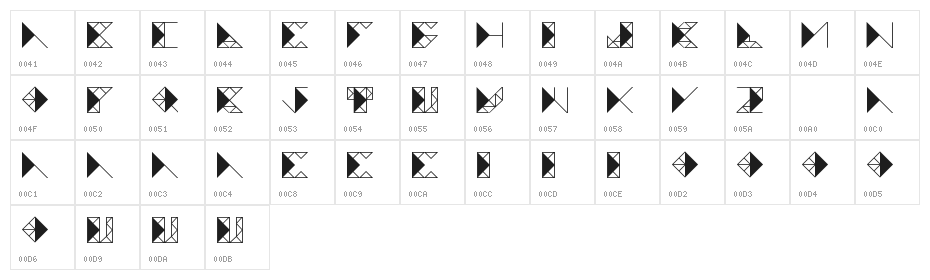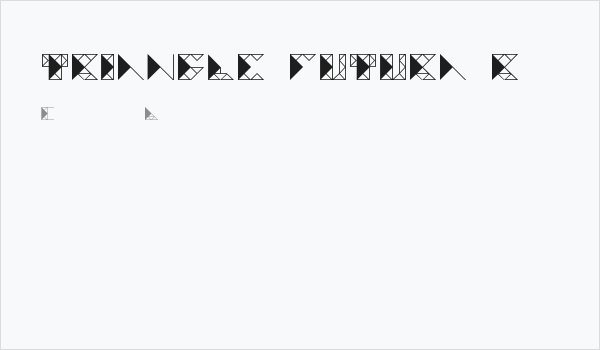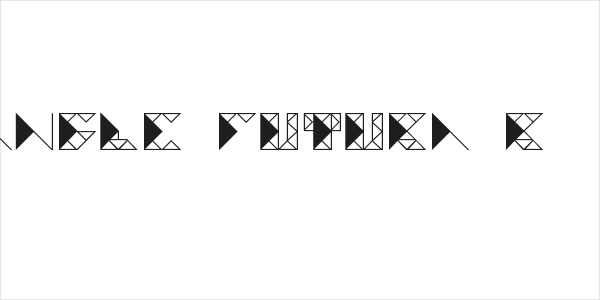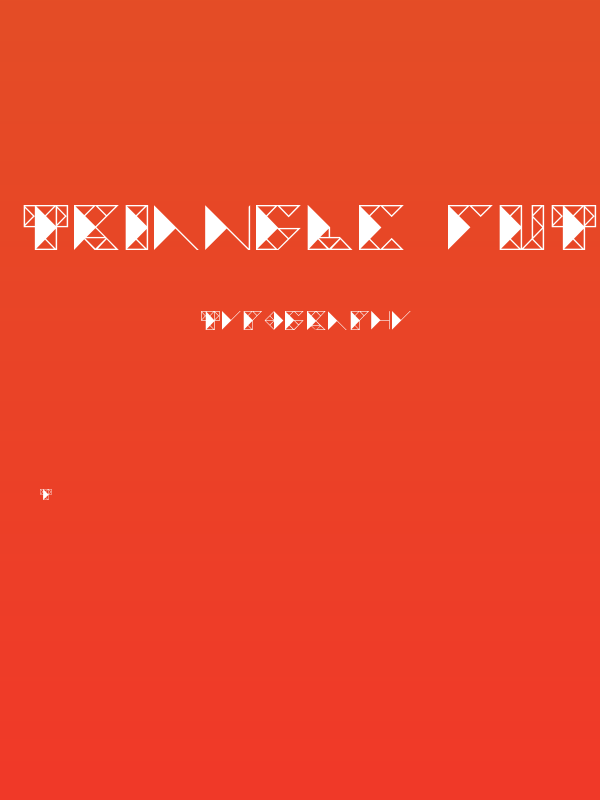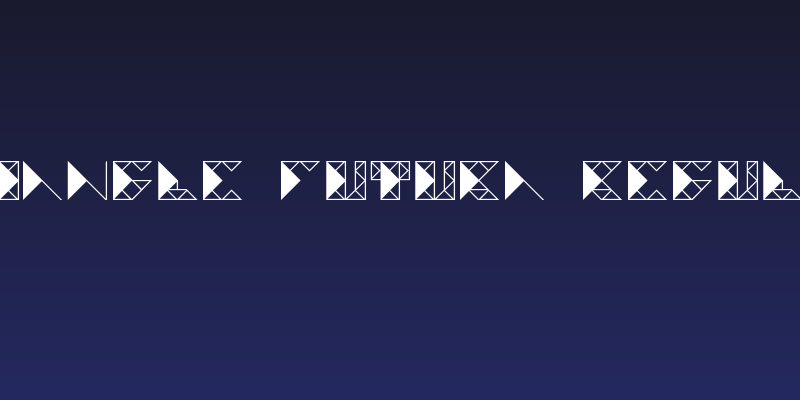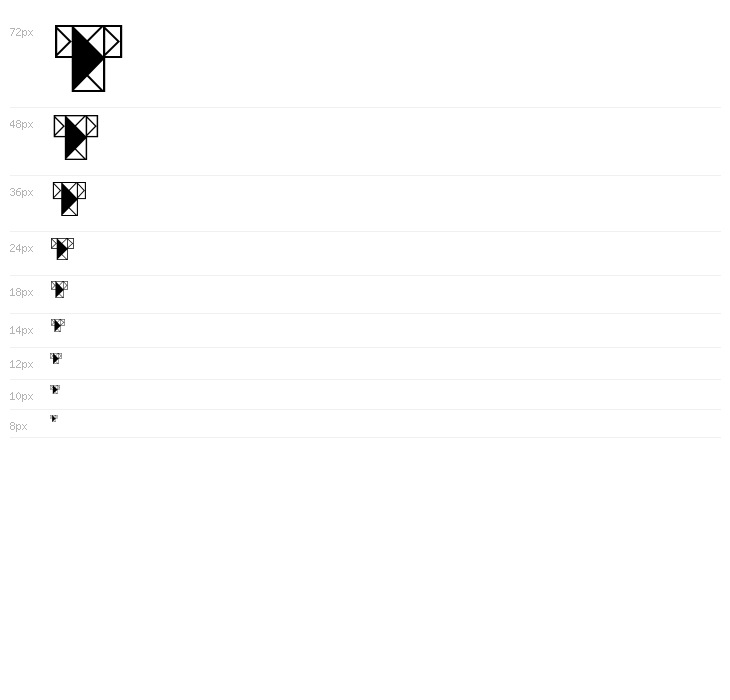
TRIANGLE FUTURA Regular Font
TRIANGLE FUTURA Regular Description
This font features a unique geometric design, with each character composed of triangular shapes and patterns. The letters are constructed using a combination of solid and outlined triangles, creating a visually striking and modern appearance. The overall style is highly decorative, making it suitable for creative and artistic projects. The font maintains a consistent triangular theme throughout, providing a cohesive and uniform look. Its intricate design makes it stand out, offering a bold and avant-garde aesthetic that is both eye-catching and innovative.
| Use Case | Logos, Headlines, Artistic Projects |
| Proposed Projects | Ideal for artistic posters, modern branding, album covers, and creative digital media. |